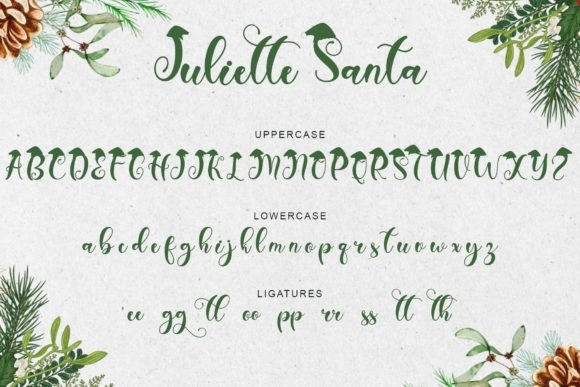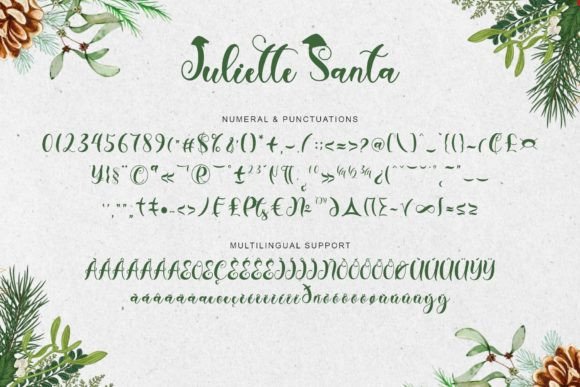
Introduction to Juliette Santa Font Font
Fonts play a crucial role in design, and the Juliette Santa Font font is a typeface that brings both character and versatility to any project. Whether you’re working on a branding project, a website, or a print design, the Juliette Santa Font font offers a unique style that can elevate your work.
βJuliette Santaβ is a beautiful and unique handwritten font.
This font is equipped with uppercase, lowercase, numerals, punctuations, ligatures and multilingual support Very suitable for Christmas, congratulations, weddings, birthdays, fall, back to school, July Christmas, summer, holidays and others.
Key Features of Juliette Santa Font Font
Why Choose Juliette Santa Font Font?
The Juliette Santa Font font is more than just a typeface β it’s a design tool that helps you communicate your message with style and clarity. Its unique character set and versatile design make it suitable for a wide range of applications, from elegant invitations to bold headlines.
With its carefully crafted letterforms and balanced proportions, the Juliette Santa Font font ensures readability and visual appeal across all mediums.
What makes Juliette Santa Font font special?
The Juliette Santa Font font stands out with its unique design, exceptional readability, and versatility across various design applications.